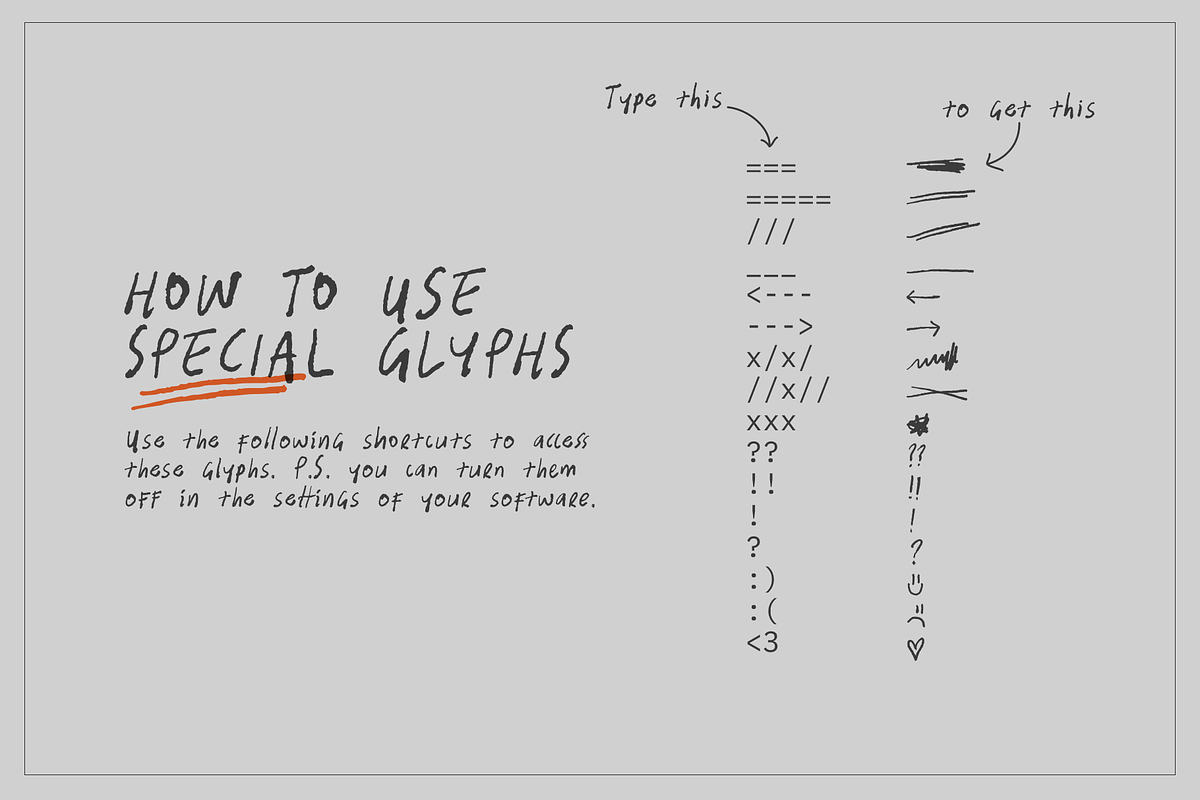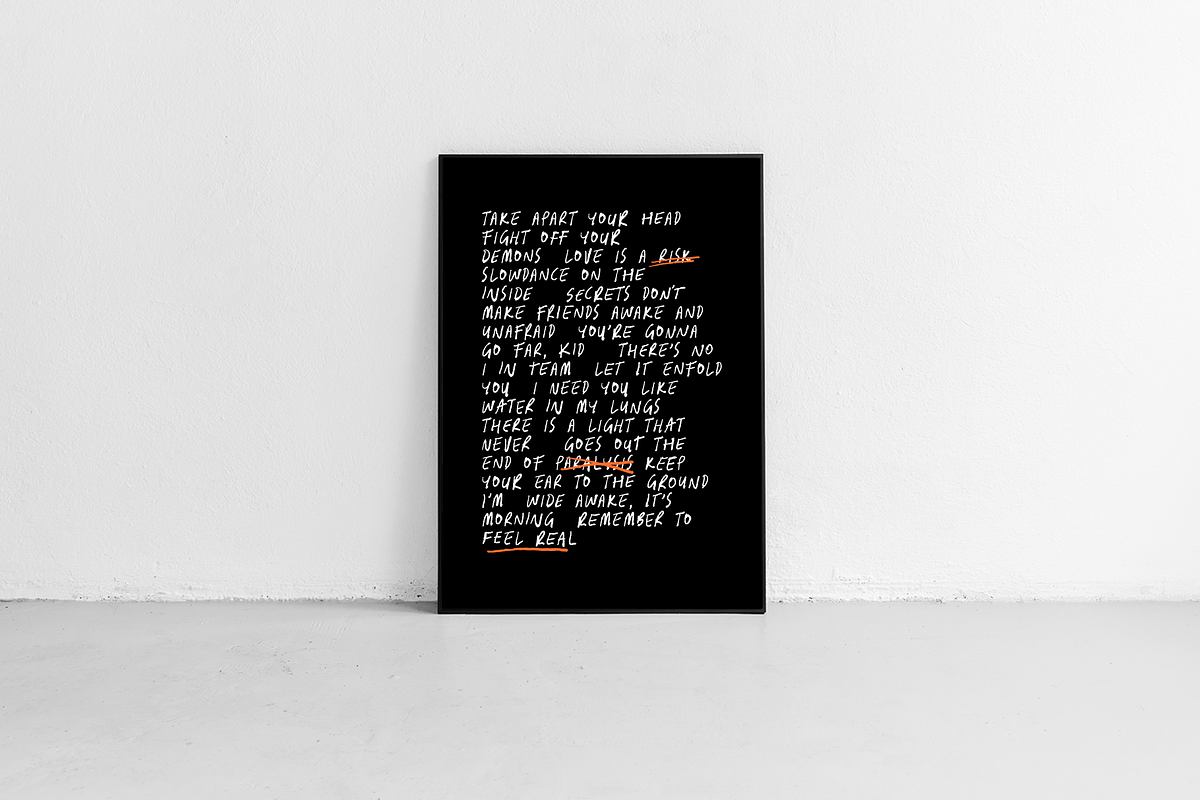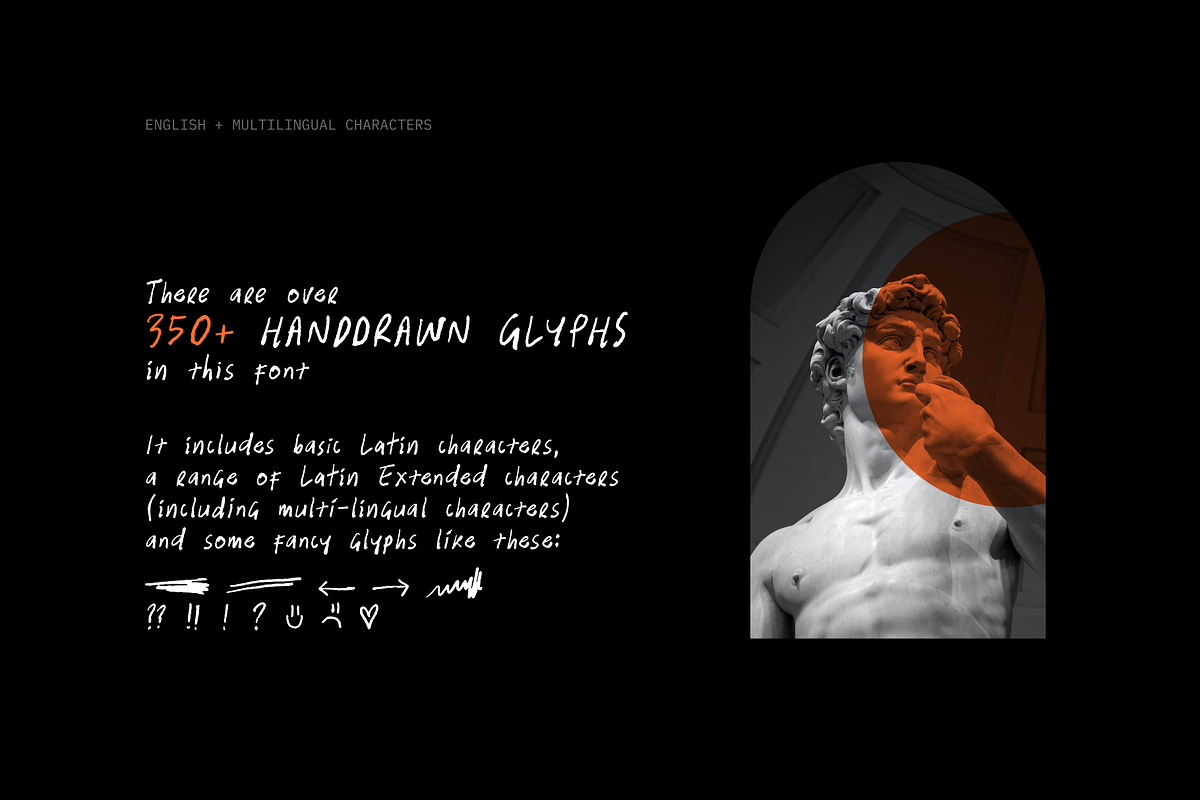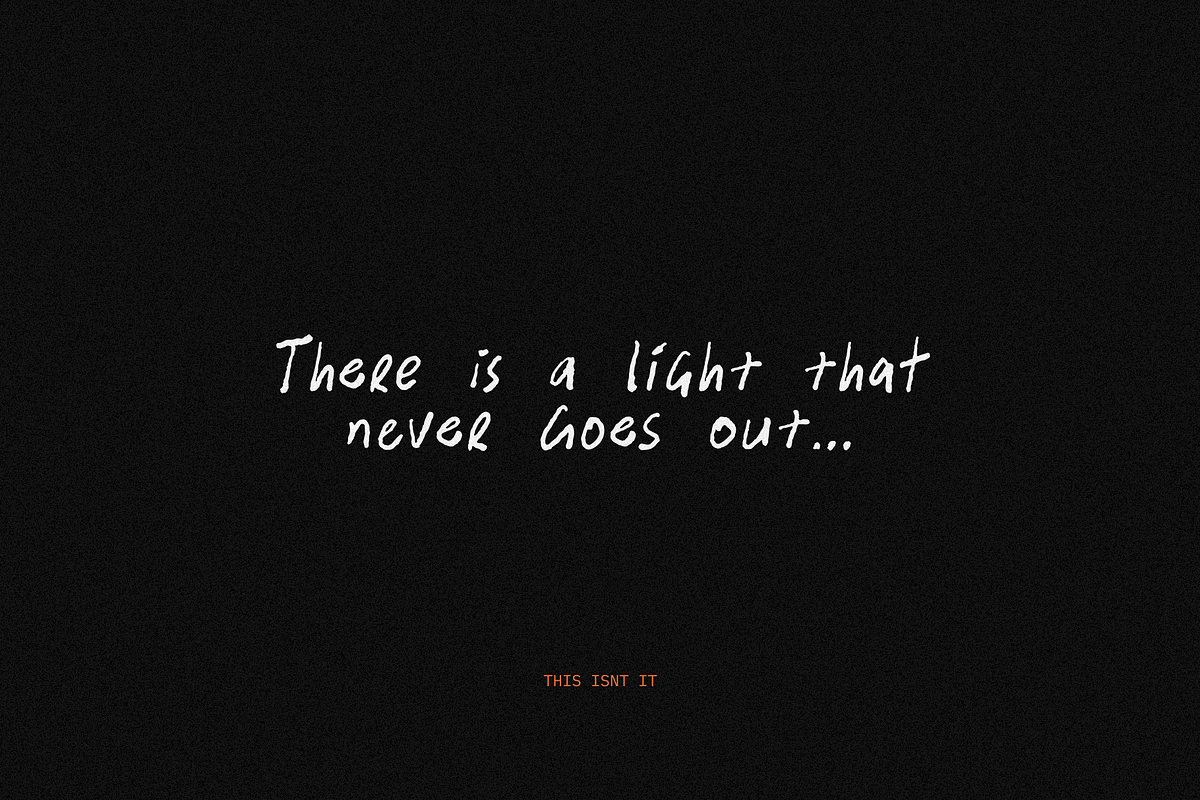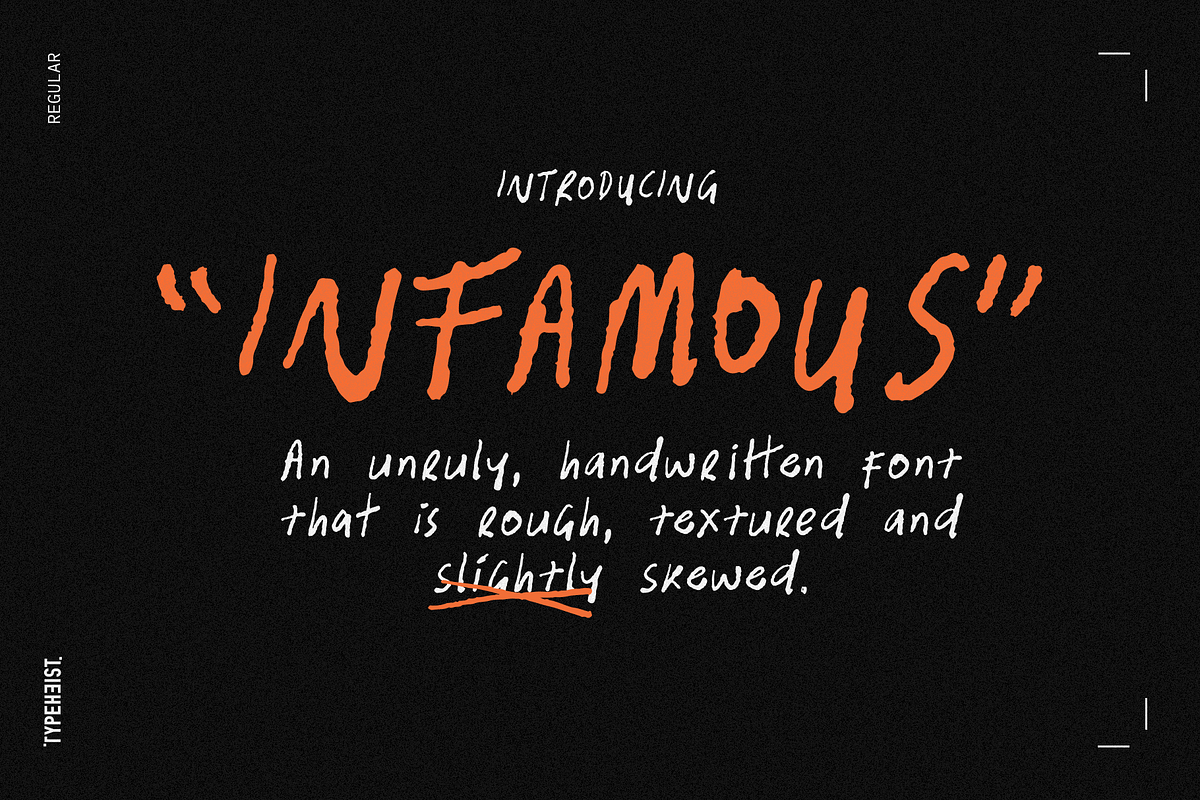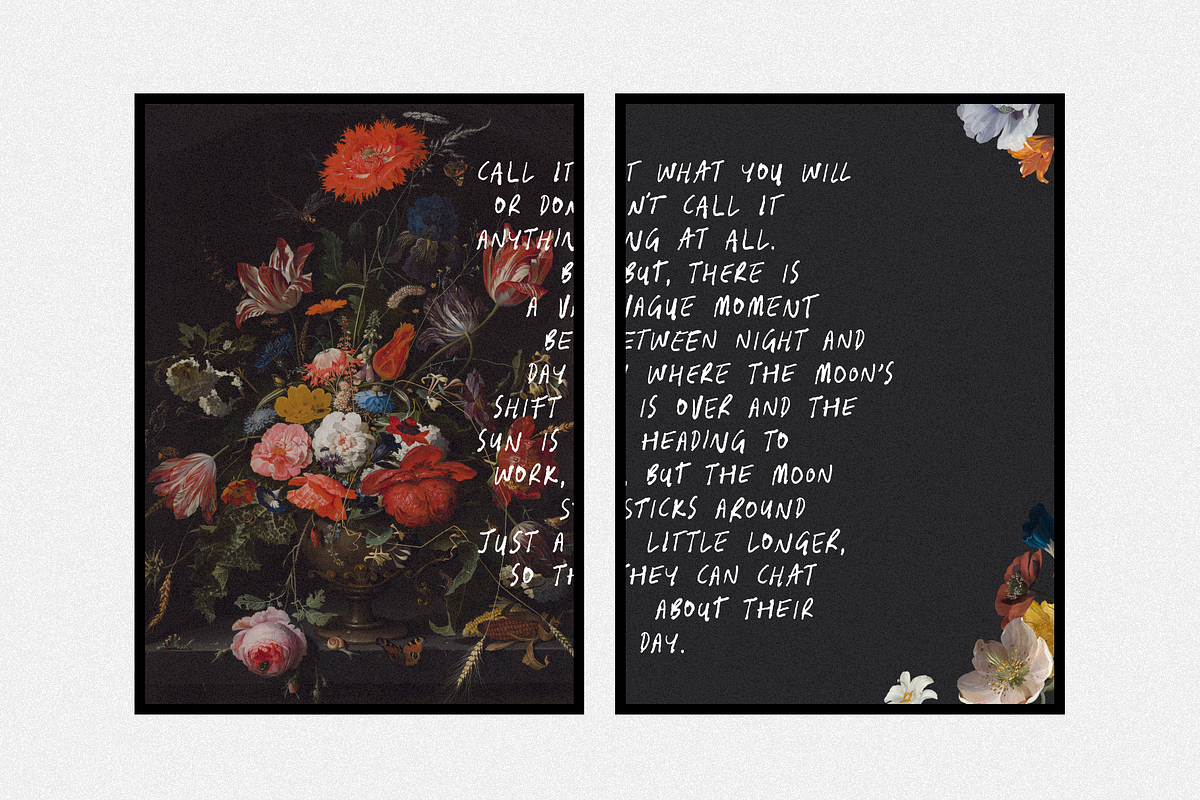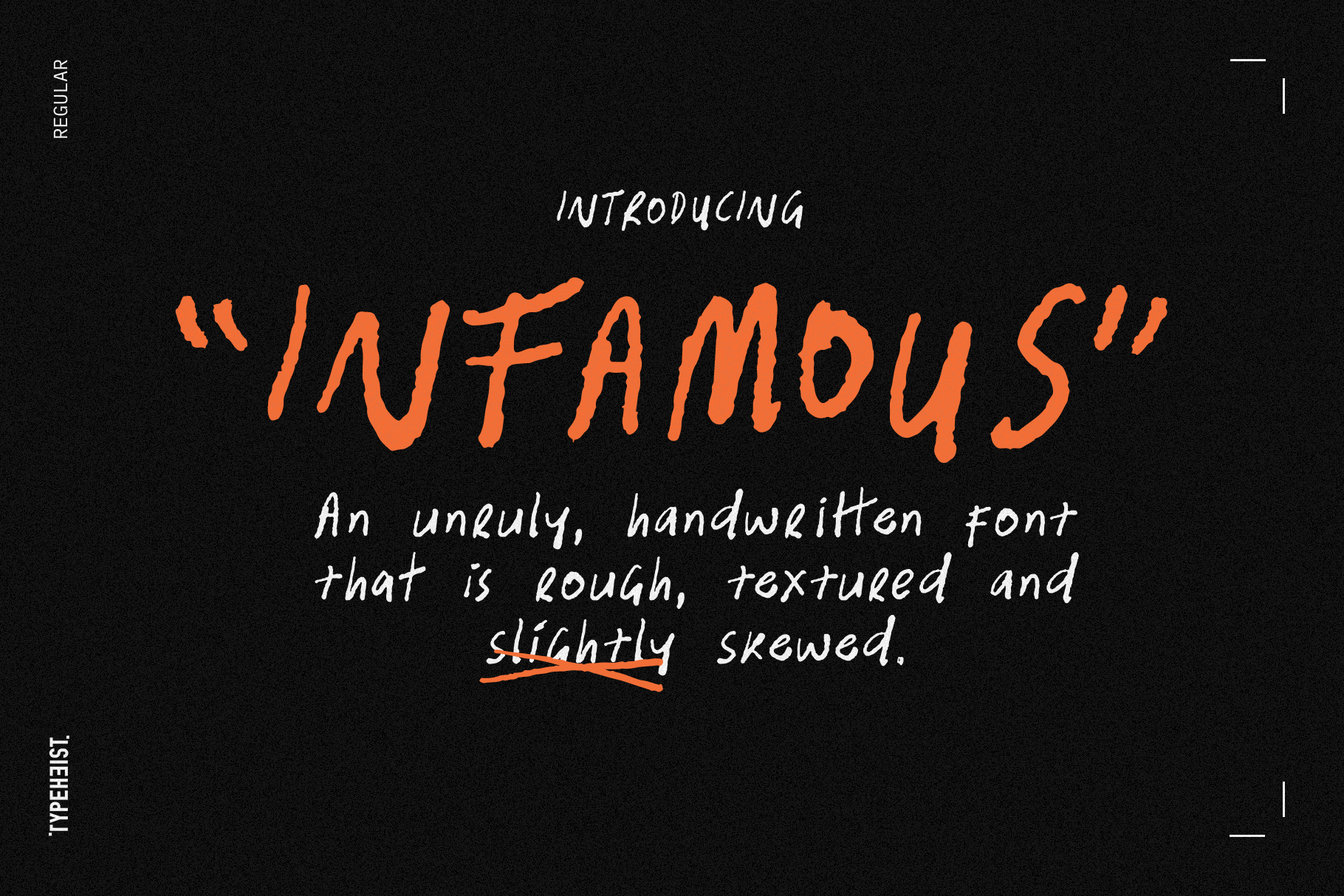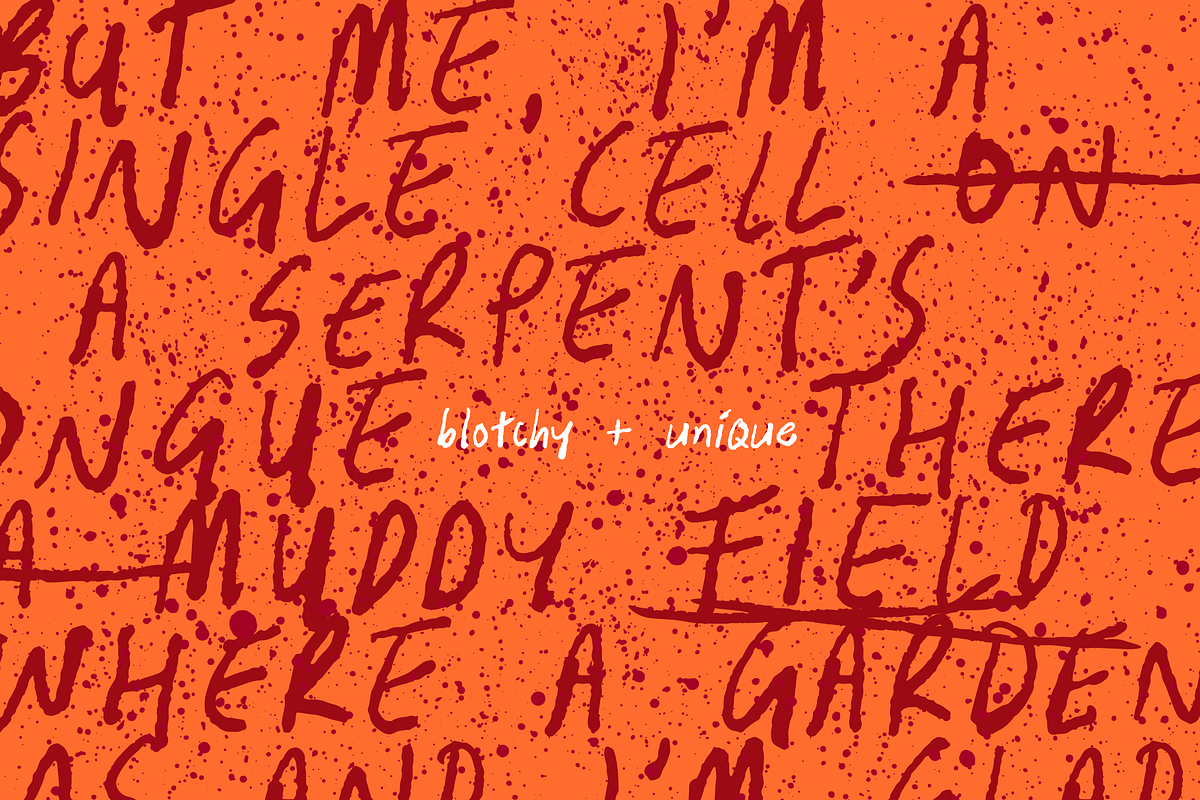
Infamous Messy Handwriting Font
An unruly, handwritten font that is rough, textured and slightly skewed. Infamous is irregular, confidently messy and undoubtably unique; how you utilise it is up to you.
There are over 360 unique glyphs in this typeface, including hand drawn scribble characters which are available by text shortcuts (see images). Infamous looks great in lowercase, uppercase and every wild combination in-between.
- Infamous Regular
- 360+ glyphs and custom ligatures
- Standard english characters
- Multilingual accented characters (Latin-1 and Extended)